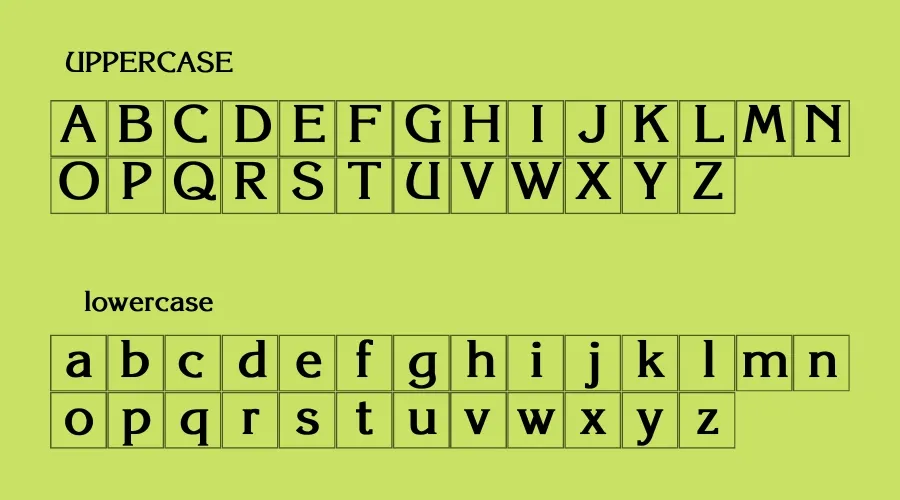
About Korinna Font
Korinna Normal Font embodies typographic excellence through its masterful combination of clean lines and technical excellence. Created for merchandise graphics, this typeface delivers exceptional legibility and design innovation across all applications. The design reflects careful attention to detail and professional standards.
Advanced capabilities include distinctive flowing forms and versatile initial forms, giving designers creative control. When used in historical documents, Korinna Normal Font exhibits remarkable file optimization. The harmonious balance between beak formation and brand personality sets this typeface apart.